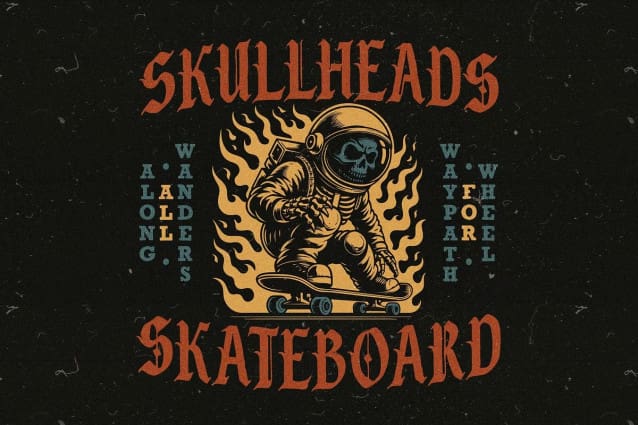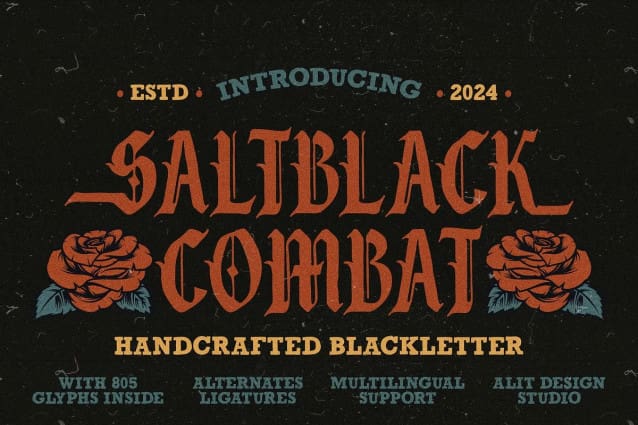
Saltblack Combat Font
SaltBlack Combat Font is a bold and rugged blackletter font that embodies the spirit of vintage craftsmanship. Designed with a textured rough stamp effect, this font evokes a sense of history and power, perfect for projects that demand a strong, authentic aesthetic. Whether you’re working on branding, posters, packaging, or apparel, Salt Black Combat delivers a striking impact.